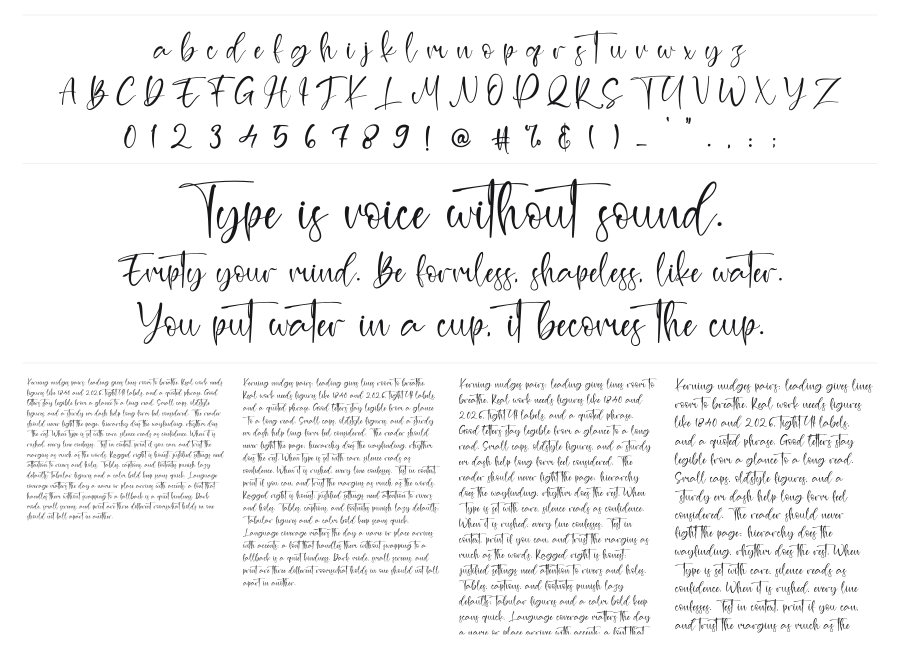
Earnest Harlley
Earnest Harlley is a lively casual script with a bouncy baseline and generous looping strokes that feel genuinely hand-penned. The medium contrast between thick downstrokes and hairline upstrokes gives it an ink-pen warmth without the rigidity of formal calligraphy. It suits wedding stationery, packaging, and lifestyle branding where personality and approachability matter.